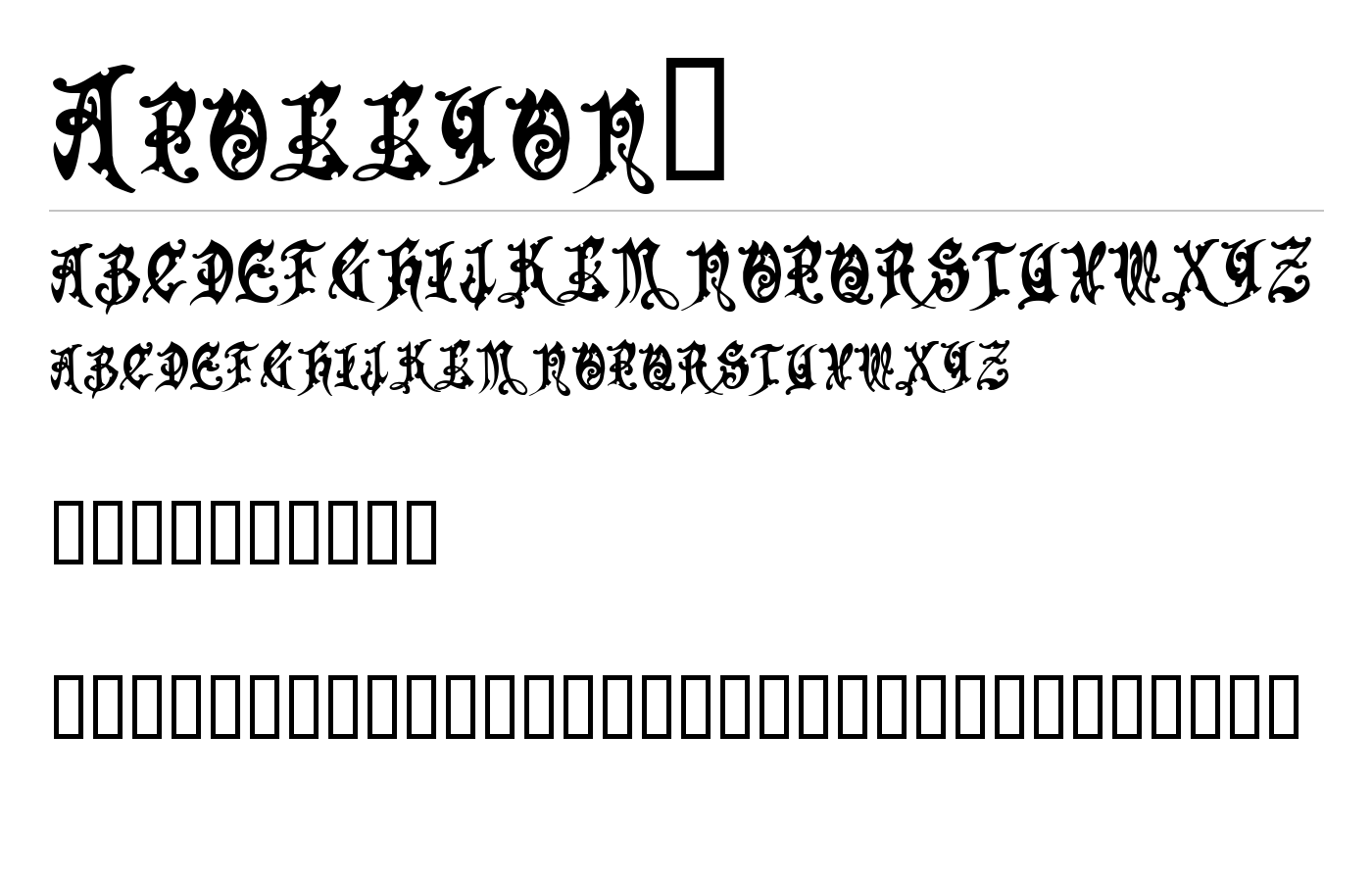
Apollyon™ is a bold, decorative serif font with a gothic, medieval-inspired design characterized by sharp, intricate details and dramatic flourishes. Its high contrast and elaborate letterforms make it ideal for creating striking headlines, logos, and themed designs that evoke a vintage, mysterious, or fantasy atmosphere. This font works best in display use where its ornamental style can stand out and captivate attention.
Apollyon™ Font